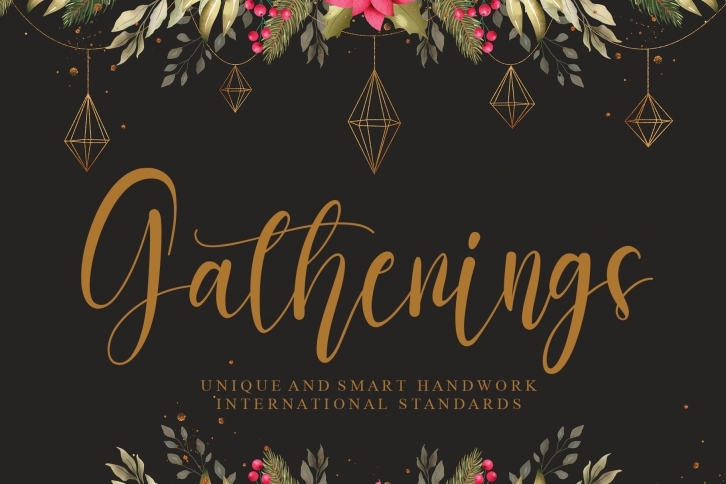
Gatherings is an exquisite and cursive script font. Dainty and joyful, this font will be ideal for writing wedding invitations, cards or any other design that may need a personalized touch!